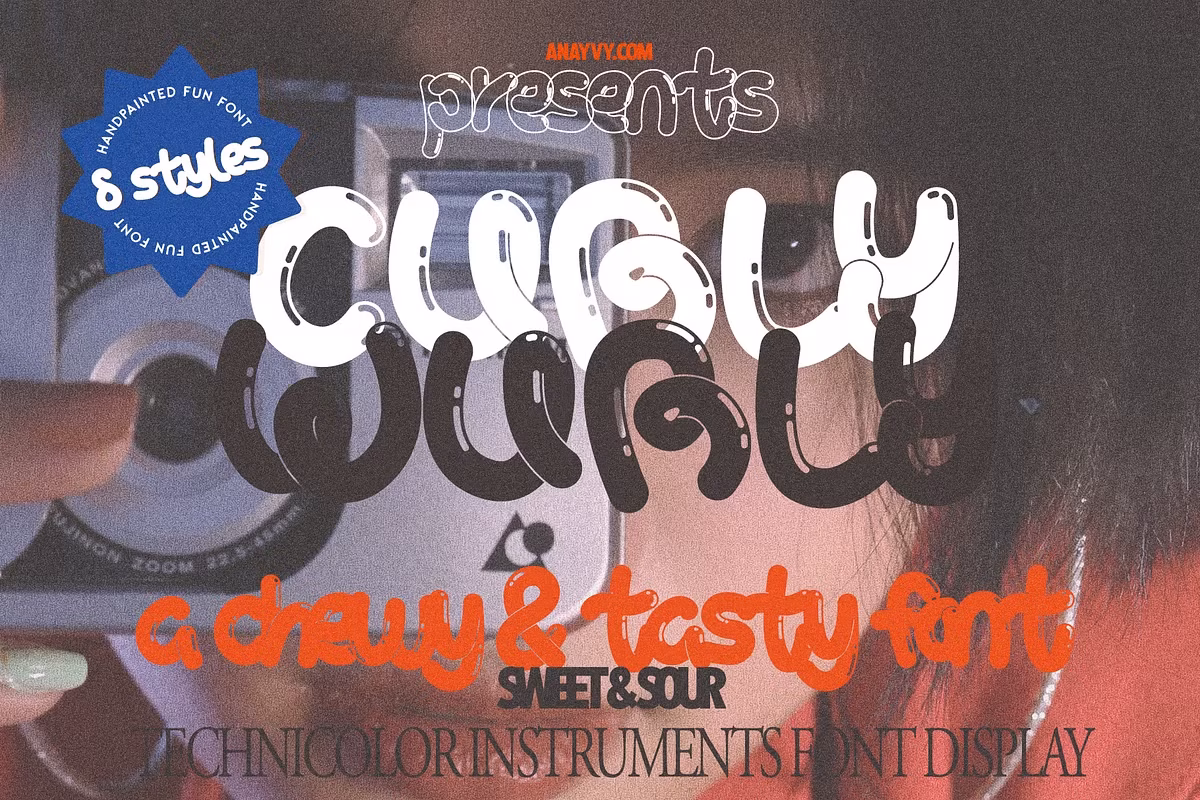
Fun, bold, and full of personality, Curly Wurly | Retro Display Bubble Font Free Download is a playful typeface inspired by retro bubble lettering. Perfect for logos, posters, t-shirt designs, branding, and social media graphics, this font adds a whimsical, vintage touch to any project.
With its rounded, bubbly letterforms and retro charm, Curly Wurly brings a nostalgic vibe to your typography, making it ideal for projects that need to feel energetic, fun, and full of personality. Whether you're working on a retro-themed event, creative branding, or a playful design, this font stands out and captures attention.